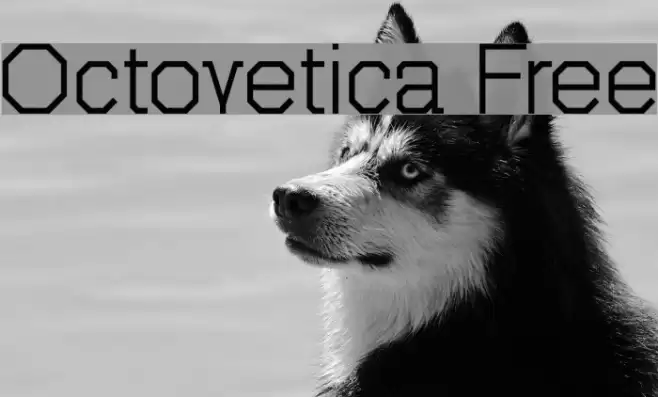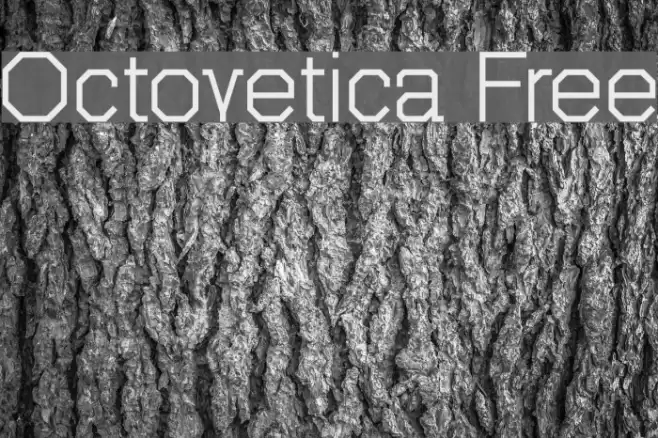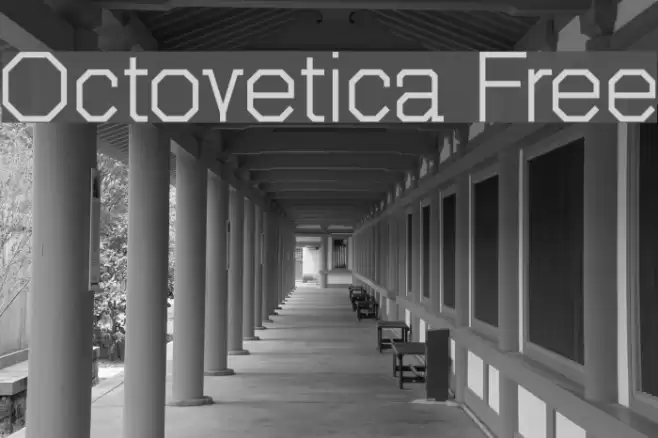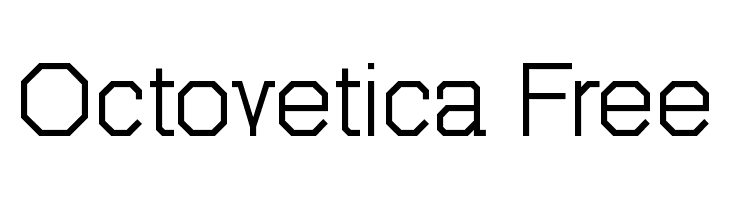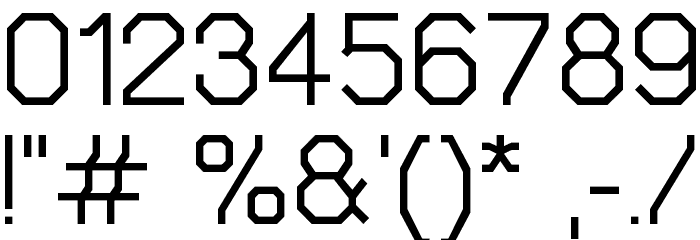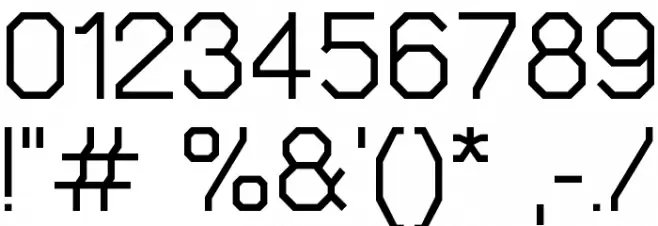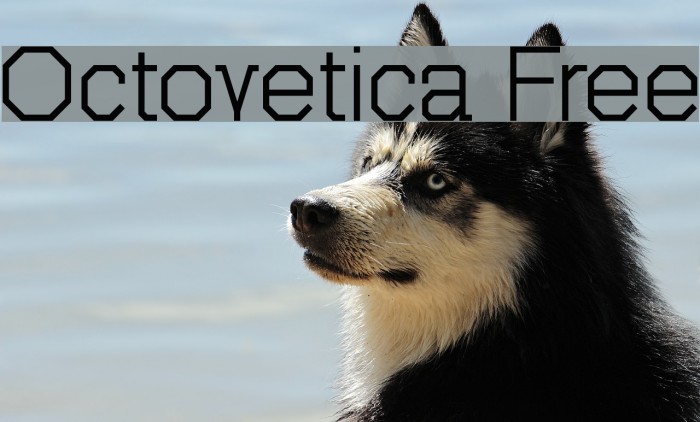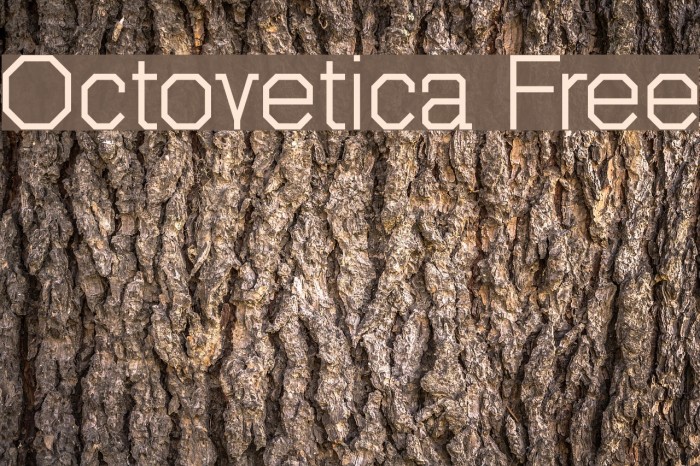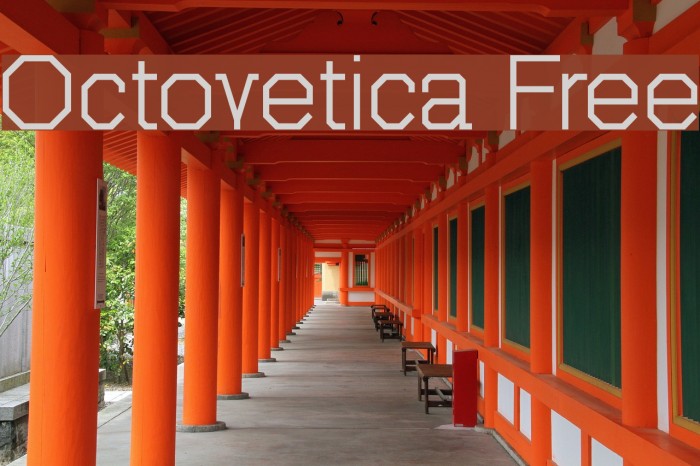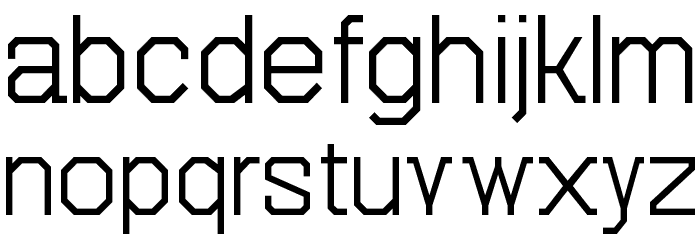
Octovetica Free Font
Octovetica Free Description
This font features a geometric and modern design with a distinct octagonal structure. Each character is crafted with straight lines and sharp angles, giving it a futuristic and technical appearance. The uppercase and lowercase letters maintain a consistent style, with uniform stroke widths that contribute to a clean and cohesive look. The numerals and special characters are designed to match the angular theme, ensuring visual harmony across all elements. This font's unique design makes it stand out, while its readability remains intact due to the clear and precise character shapes.
A geometric, octagonal font with a modern and technical style from Futuristic fonts.
- Proposed Projects: Ideal for tech branding, futuristic designs, digital interfaces, and modern logos.
- Use Case: Logos, Headlines, Digital Interfaces